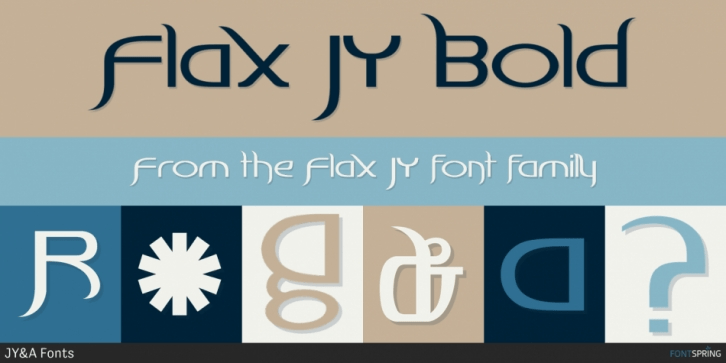
Flax JY
Flax JY is a modern sans serif with a distinctly stylized look, pairing clean geometry with high contrast, smooth curves, and unusual terminals. The result feels contemporary, elegant, and decorative at once, with bold personality in both its uppercase and lowercase letterforms.
This family includes 2 styles, Regular and Bold, giving you a flexible range for display-focused work. Its minimalist structure and unique shapes make it a strong fit for branding, posters, packaging, social graphics, and other design projects that need a polished, design-forward voice without feeling ordinary.
Created by JY&A, this is a smart choice when you want a sans serif that feels artistic and refined while still staying crisp and readable in larger settings. Numbers are included as well, making it useful for layouts that need both expressive headlines and supporting visual details.